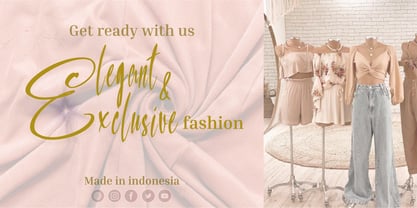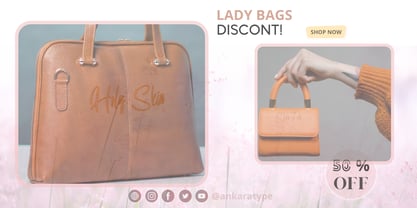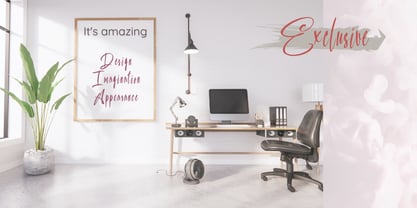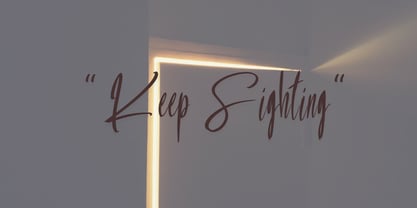
Meta Script
von Saytype
Die Schriftfamilie Meta Script wurde von Sayuti Yuti entworfen und von Saytype veröffentlicht. Meta Script enthält 1 Stile.
Bring your designs to life with Meta Script, a script font that blends classic and modern styles with a stylish font.
Add a personal and modern touch to your next design and project with Meta Script.